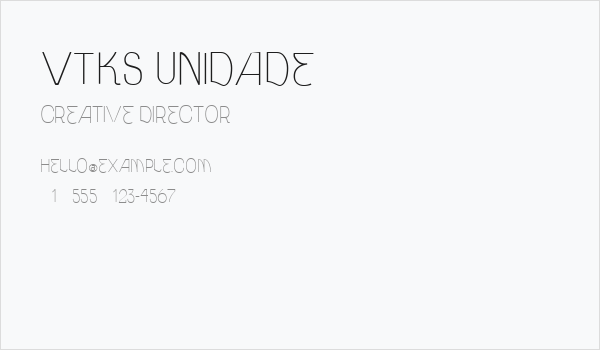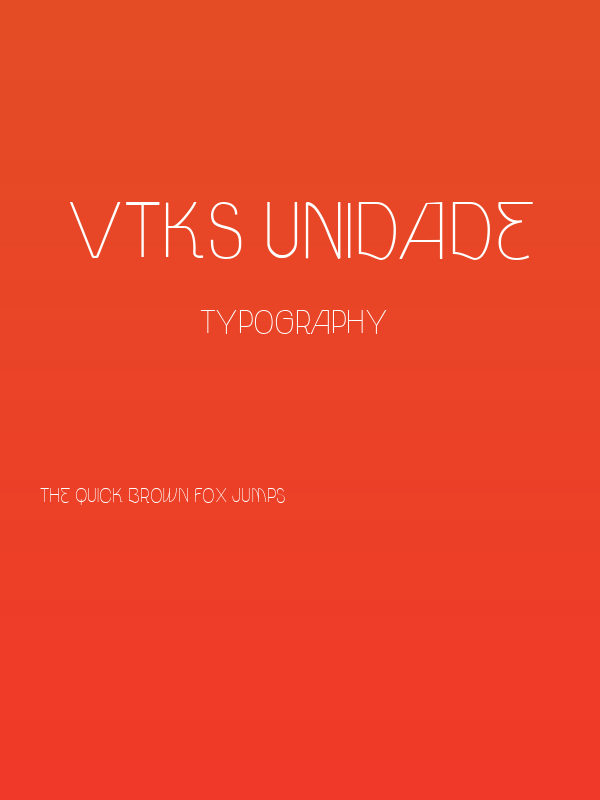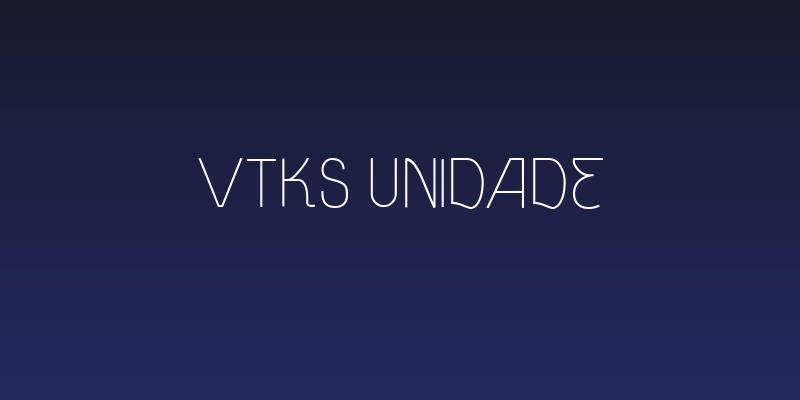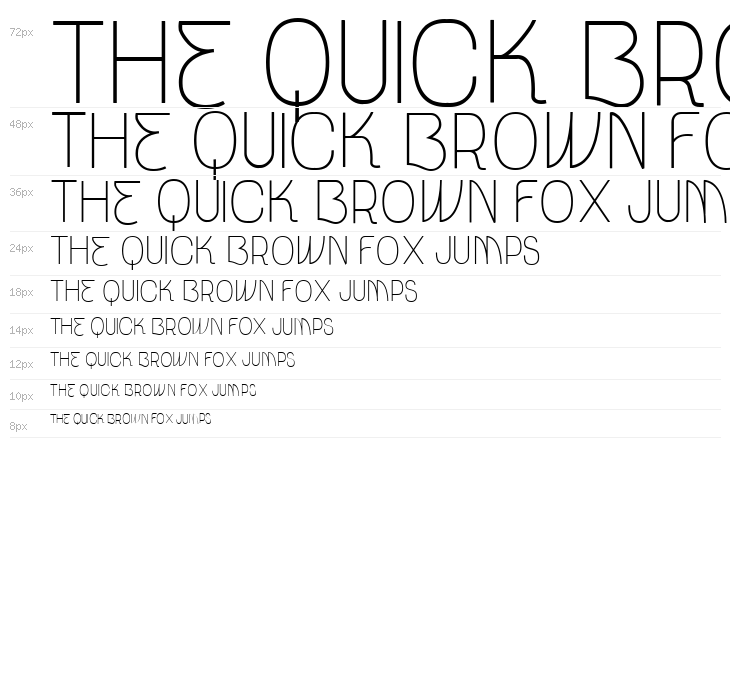
vtks unidade Font
vtks unidade Description
This font features a unique and modern design with a geometric and minimalist aesthetic. The characters are constructed with clean, thin lines that give it a sleek and contemporary look. The uppercase letters have a distinctive style with some characters incorporating unexpected angles and curves, adding a creative flair. The numerals are consistent with the overall design, maintaining the thin and elongated structure. Special characters are also included, complementing the font's modern appearance. This font is ideal for projects that require a stylish and innovative touch.
| Proposed Projects | Ideal for branding, logos, modern advertising, and editorial design. |